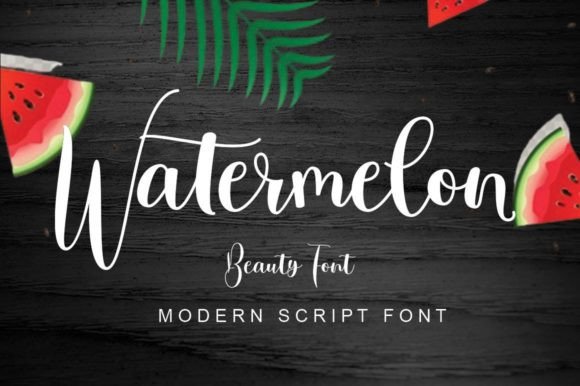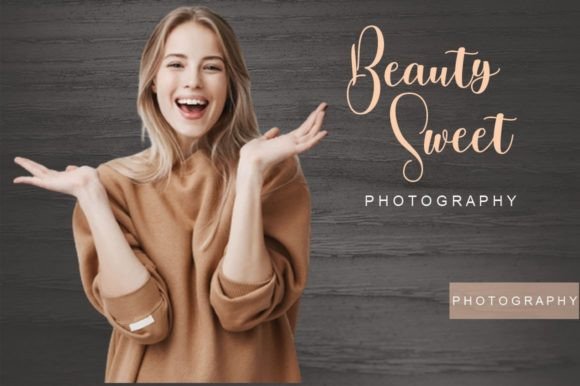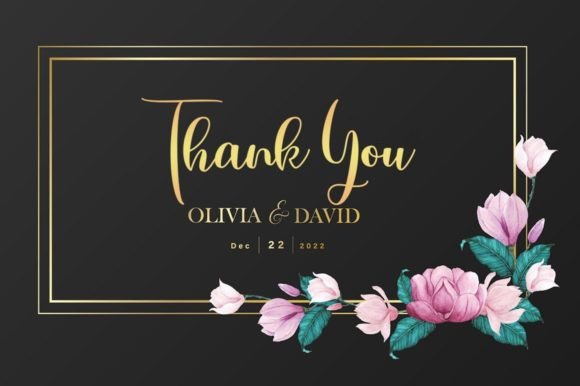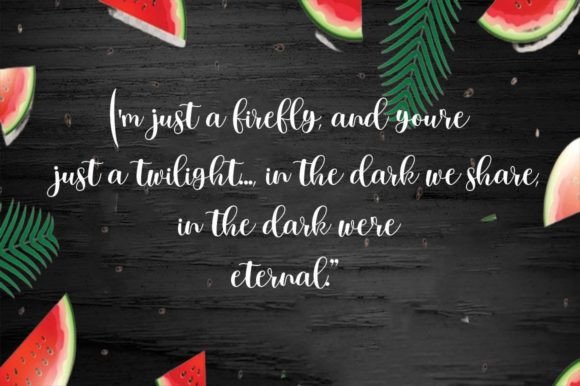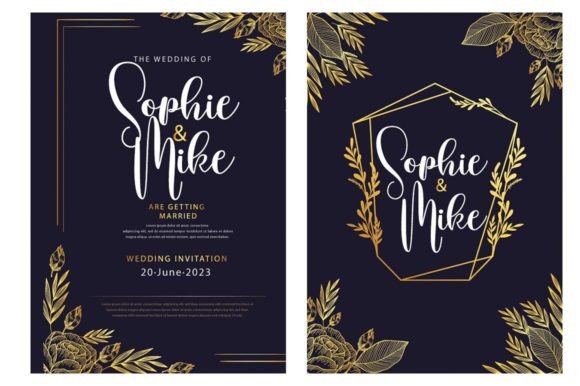
Watermelon Font
About Watermelon Font
The Watermelon Beauty Font is a modern script font that draws inspiration from the refreshing and vibrant qualities of watermelon. With a fresh, stylish, elegant, and natural look, this font is designed to add a touch of contemporary beauty to a variety of projects.
Perfect for branding logos and invitations, the Watermelon Beauty Font brings a modern and sophisticated flair to your visual identity. Its unique script style exudes freshness and creativity, making it an excellent choice for businesses or events that want to convey a sense of vibrancy and style.
Ideal for wedding designs, this font adds a touch of elegance to invitations, place cards, and other wedding materials. The natural and flowing strokes of the Watermelon Beauty Font contribute to a romantic and timeless aesthetic, creating a perfect complement for special occasions.
In the realm of photography, quotes, and posters, the font’s modern script style stands out, providing a captivating and visually appealing element to your visuals. Whether you’re watermarking your images or creating promotional materials, this font adds a contemporary and stylish touch.
The versatility of the Watermelon Beauty Font extends to special events and beyond. Its elegant script is suitable for a wide range of applications, allowing you to create stunning designs for various projects. The font’s ability to capture attention while maintaining a natural and organic feel makes it a valuable asset for designers seeking a modern and stylish script.
The PUA encoding of the Watermelon Beauty Font is a notable feature, providing easy access to a variety of amazing glyphs and ligatures. This enhances the font’s creative potential, allowing users to customize and personalize their designs effortlessly.
In summary, the Watermelon Beauty Font is more than just a typeface; it’s a design element that brings modernity, style, and a touch of nature to your projects. Whether you’re working on branding, invitations, wedding designs, photography, quotes, posters, watermarks, or special events, this font offers a fresh and elegant solution. With PUA encoding, accessing the font’s remarkable glyphs and ligatures is a seamless experience, empowering designers to create visually stunning and unique designs.